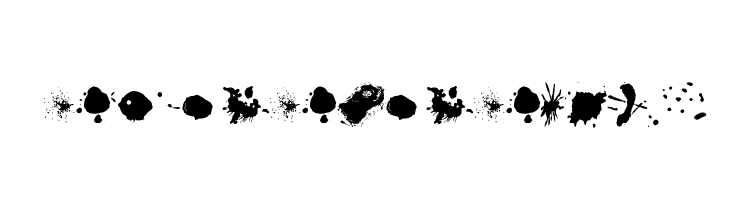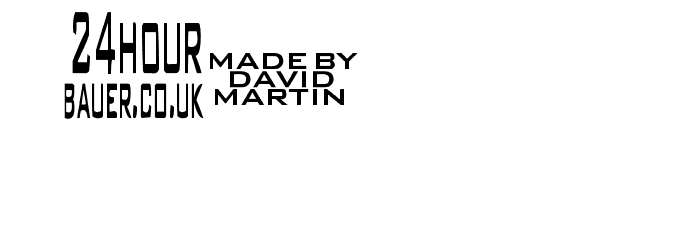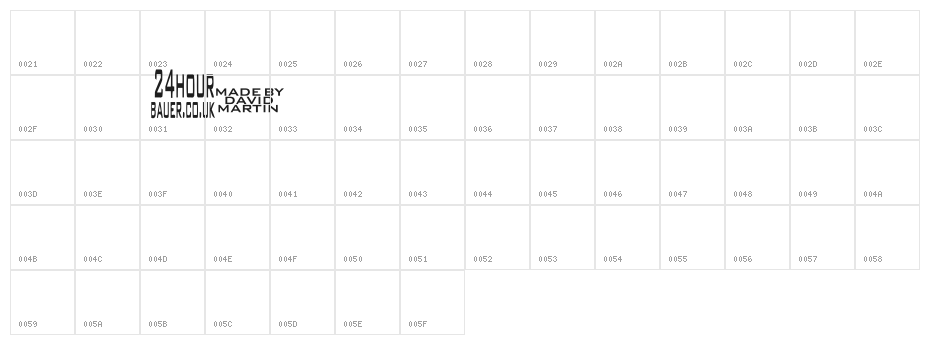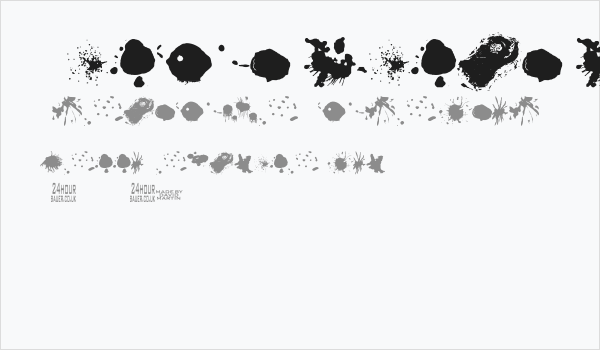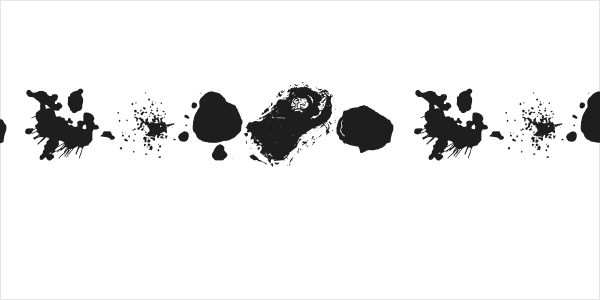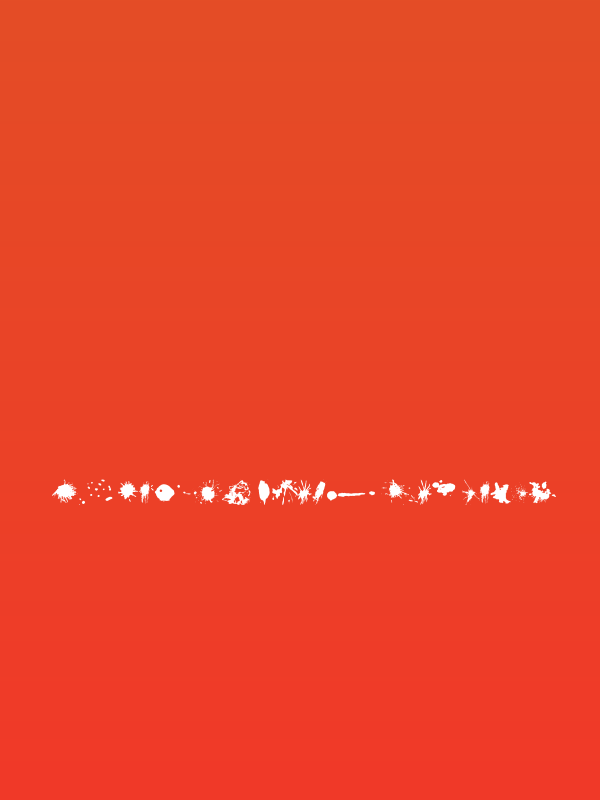
Split splat splodge Font
Split splat splodge Description
A highly decorative display font featuring irregular, ink splatter and blot shapes in place of traditional letterforms, creating a chaotic and artistic appearance. The characters are abstract and organic, mimicking the look of ink dropped or splashed on paper.
| Overall Style | Decorative, Artistic, Grunge |
| Use Case | Logos, Headlines, Posters, Artistic projects |
| Proposed Projects | Album covers, posters, graffiti art, experimental design, edgy branding, event flyers. |